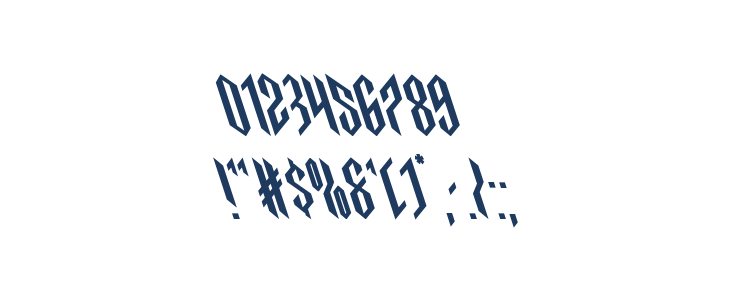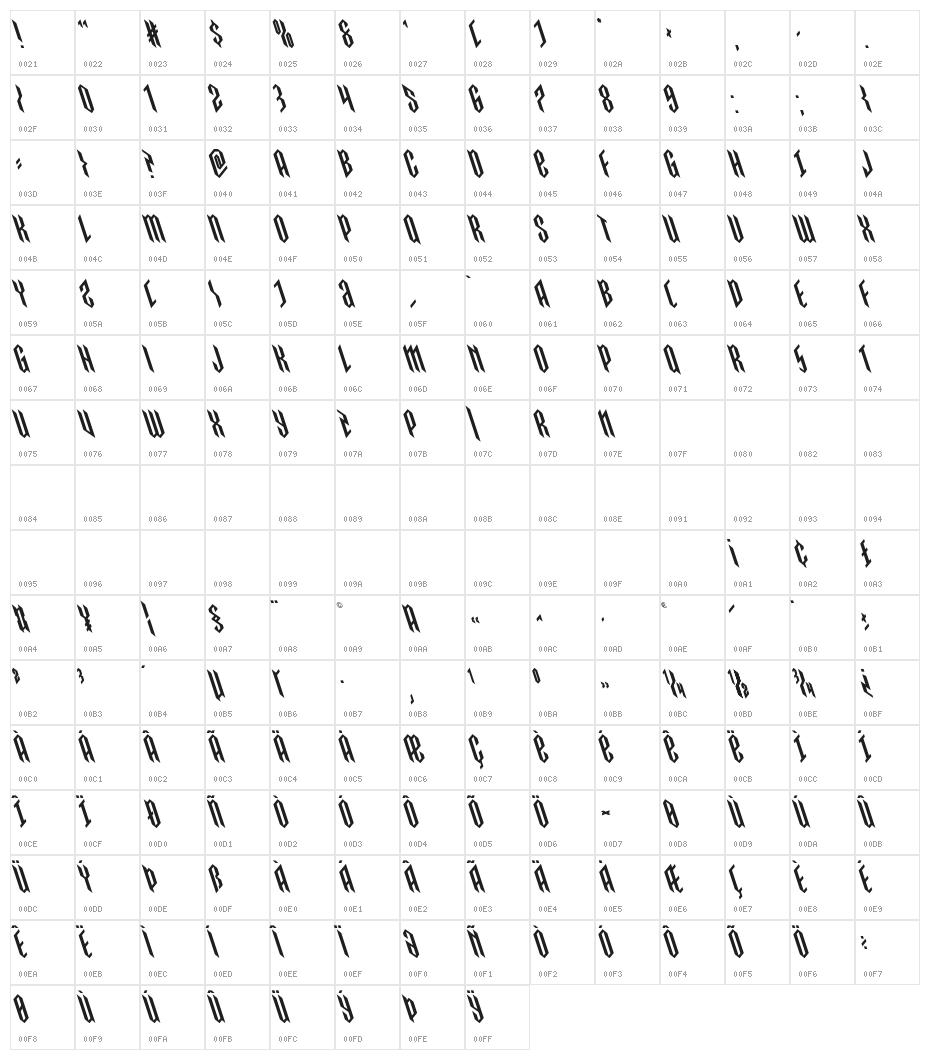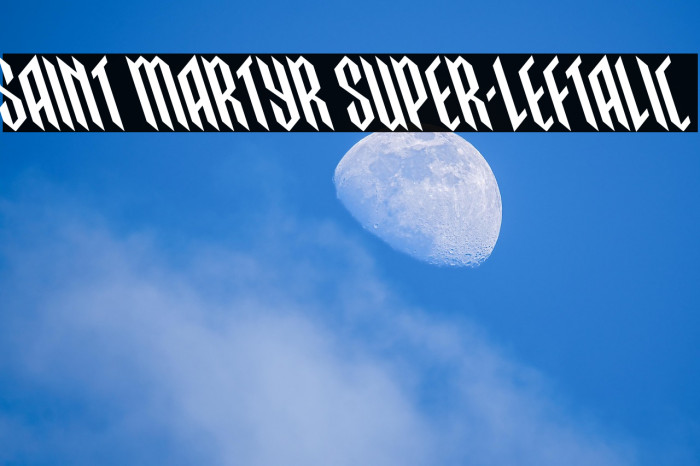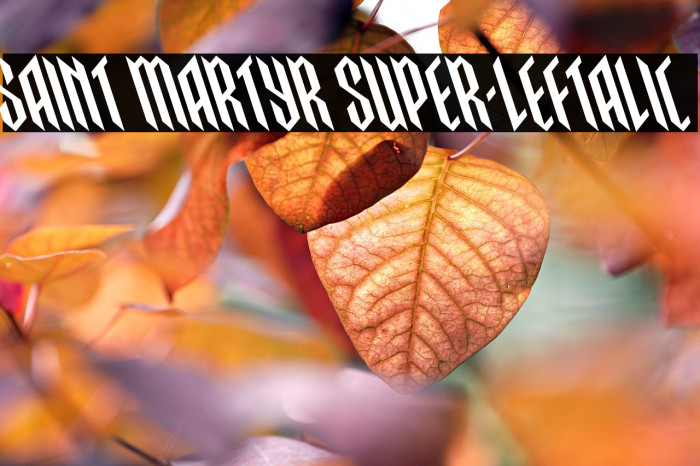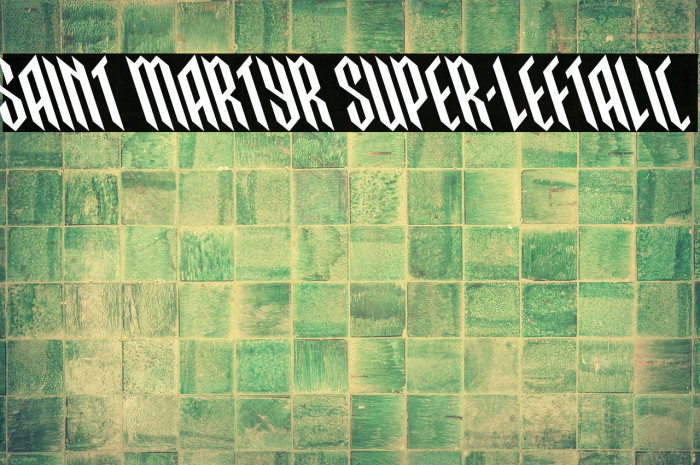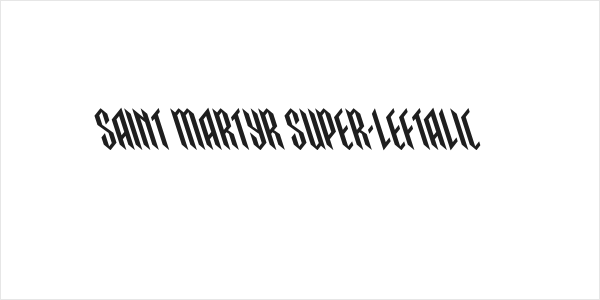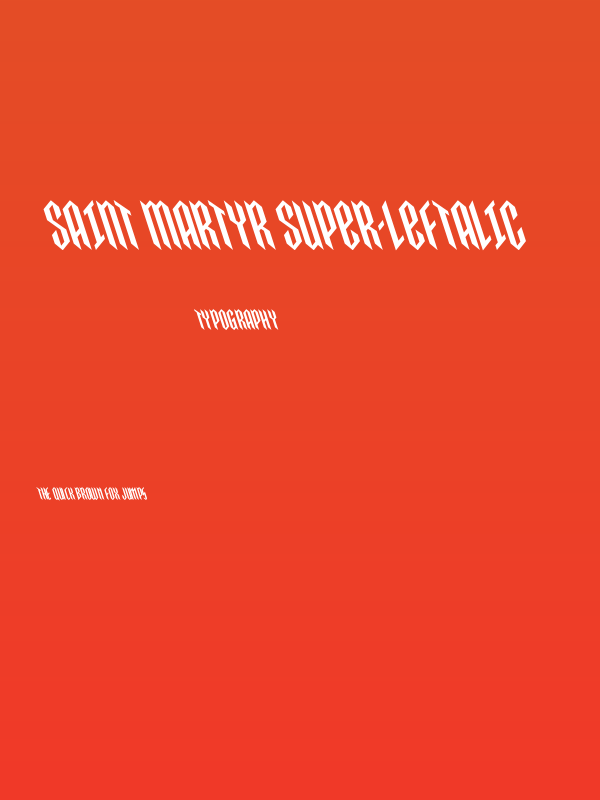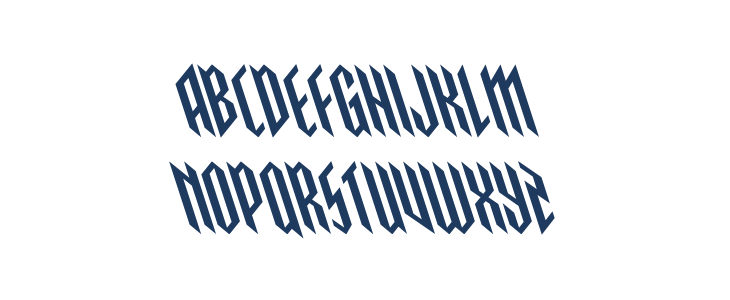
Saint Martyr Super-Leftalic Font
Saint Martyr Super-Leftalic Description
This font exhibits a bold and dynamic style with a strong leftward slant, creating a sense of motion and energy. The characters are sharply angular, with pointed edges and a distinct geometric form. The uppercase and lowercase letters maintain a consistent style, emphasizing a modern and edgy aesthetic. The numbers and special characters follow the same angular design, ensuring uniformity across all glyphs. This font's unique style makes it stand out, ideal for projects that require a bold statement.
| Proposed Projects | Ideal for edgy branding, poster designs, album covers, and modern digital art. |